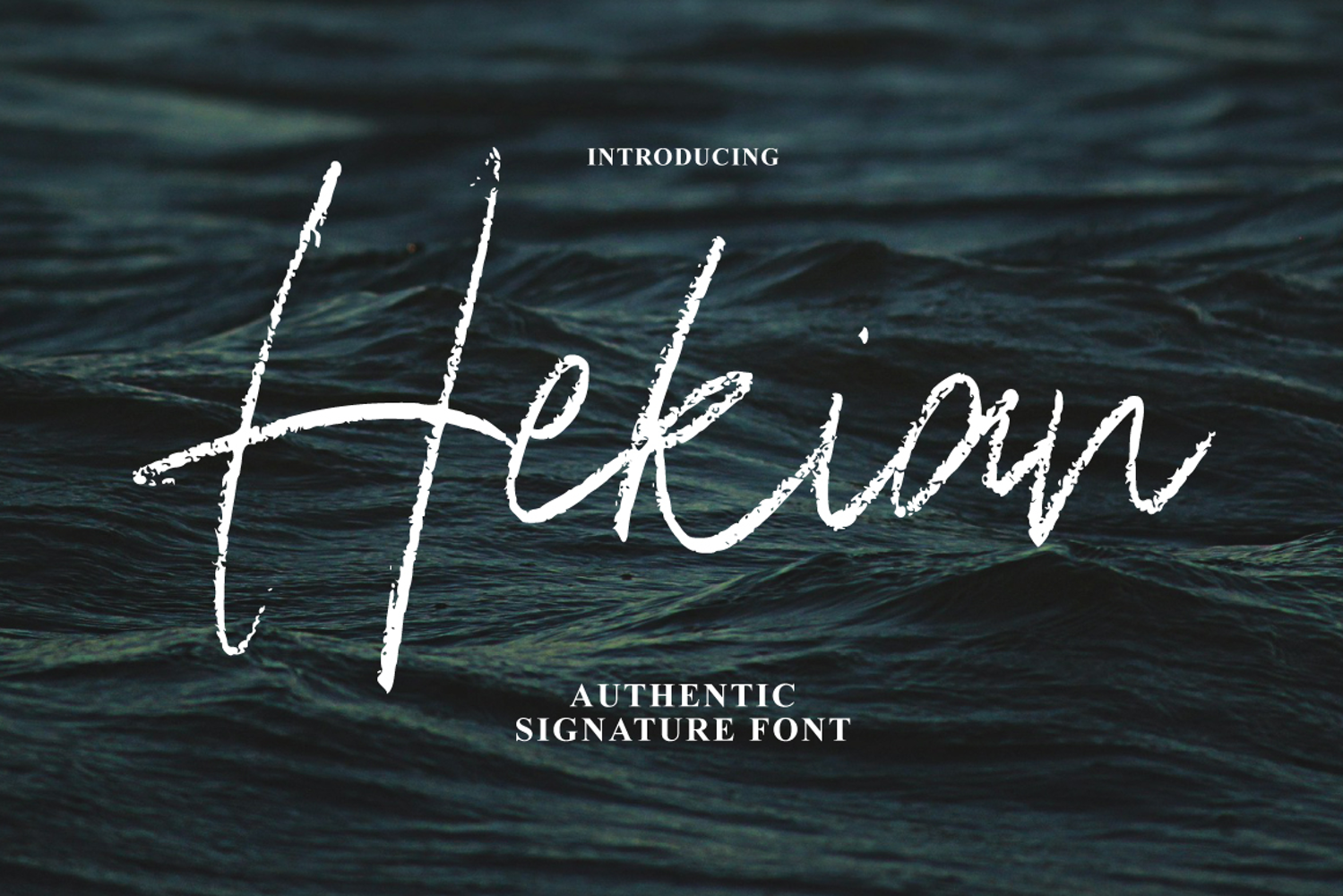
Hekian Signature Brush
Introducing
Hekian Signature Brush with a handmade calligraphy style, decorative characters and a dancing baseline! So beautiful on invitation like greeting cards, branding materials, business cards, quotes, posters, and more!!
Hekian Signature Brush Features :